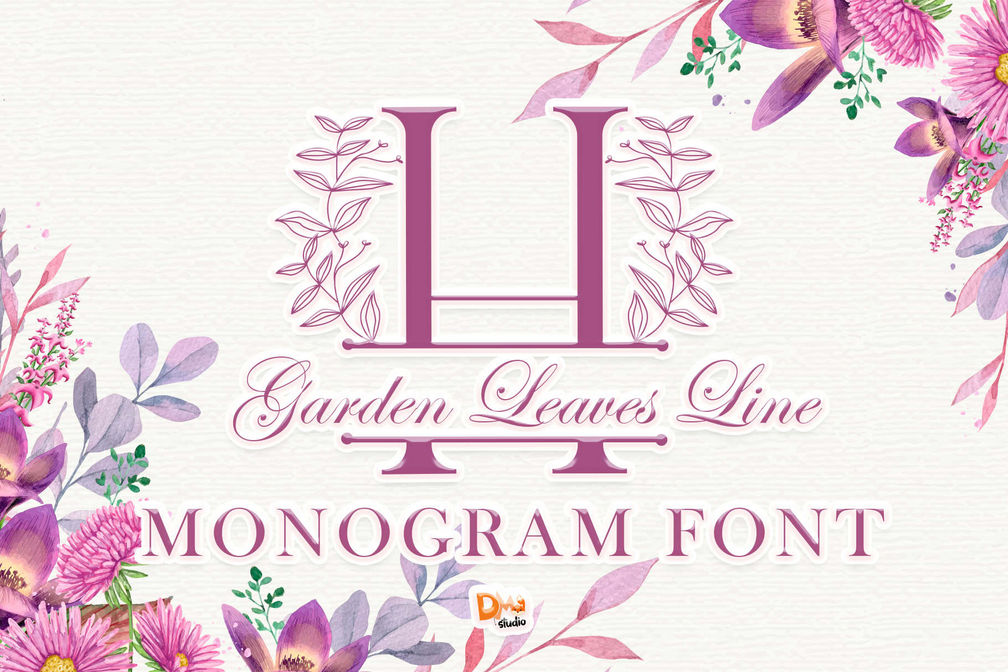
Garden Leaves Line Monogram
Garden Leaves Line Monogram – Elegant & Nature-Inspired Monogram Font
Garden Leaves Line Monogram is a beautifully crafted monogram font featuring delicate leaf-inspired line art. Perfect for wedding invitations, luxury branding, personalized stationery, boutique packaging, and artistic monogram designs, this typeface blends natural elegance with timeless sophistication. Its graceful botanical details make it an excellent choice for refined and stylish projects.
• Nature-Inspired Monogram Design: Each letter is adorned with intricate leaf details for a botanical aesthetic.
• Perfect for Elegant & Luxury Projects: Ideal for wedding stationery, logos, branding, and personalized gifts.
• Minimalist & Ornamental Aesthetic: A seamless combination of monogram elegance and nature-inspired line art.